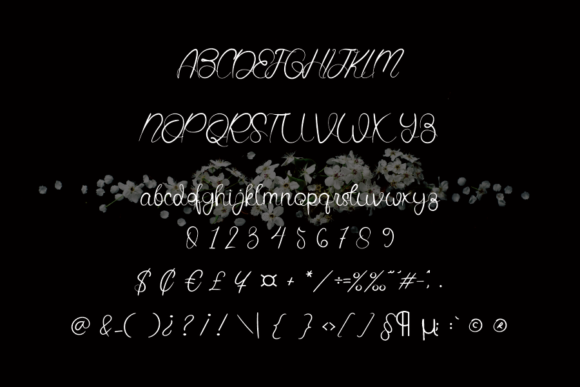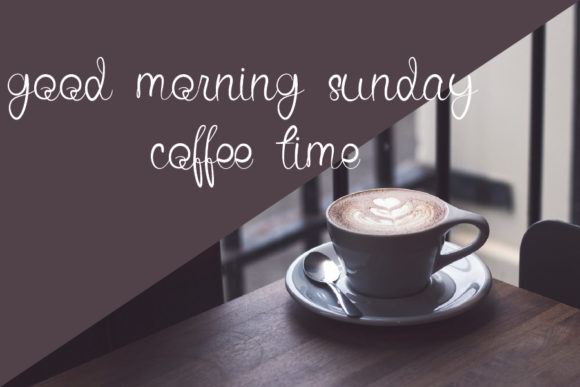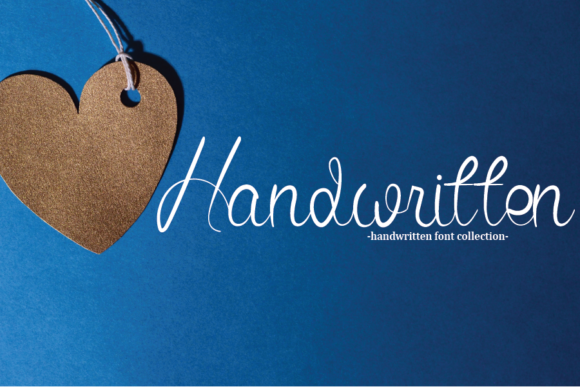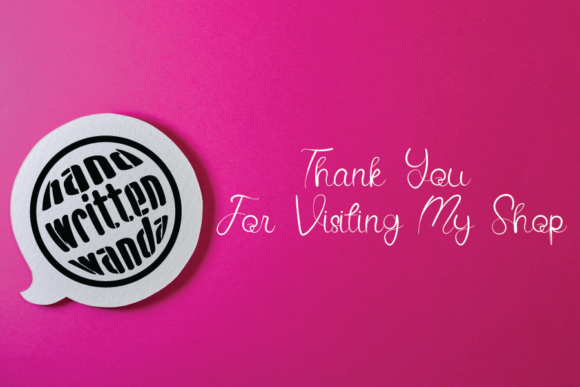
The Quest for the Perfect Font: Discovering Briliant Signature
I’ll never forget the design project that led me to Briliant Signature. I was working on a custom wedding invitation for a client who wanted something elegant, yet modern. As I scrolled through font after font, I just couldn’t find the right fit. That was until I stumbled upon Briliant Signature – an elegant script font that instantly captured the essence of what I was looking for.
A First Impression: What Makes Briliant Signature Stand Out
Briliant Signature is described as an elegant script font with a contemporary atmosphere and impeccable form, inspired by timeless classic calligraphy. And trust me, it delivers. Not too thin and not too thick, this font strikes a perfect balance, making it versatile for a wide range of projects.
- ✨ Elegant and sophisticated feel that’s perfect for high-end projects
- ✅ Highly legible, even at smaller sizes
- 💫 Beautifully crafted with a clear attention to detail
- 🌈 Versatile and adaptable to various design contexts
- 🤔 Some users might find the font a bit too ‘script-heavy’ for very casual projects
- ⚠️ Limited availability of certain OpenType features in older software
The Story Behind Briliant Signature: Designer Inspiration
While the actual origins of Briliant Signature remain a mystery, it’s easy to imagine that its creation was inspired by a passion for classic calligraphy and modern design. The font’s designer likely sought to craft a typeface that would marry the elegance of traditional calligraphy with the needs of contemporary design.
Q: What makes Briliant Signature suitable for high-end projects?
A: Its impeccable form, elegant lines, and balanced strokes make it perfect for sophisticated and professional designs.
Q: Can I use Briliant Signature for body text?
A: While it’s primarily designed for headings and titles, Briliant Signature’s legibility makes it suitable for short paragraphs of body text.
Q: Does Briliant Signature support OpenType features?
A: Yes, Briliant Signature supports various OpenType features, including stylistic alternates and glyphs, which can be accessed in compatible software.
Q: Is Briliant Signature easy to read?
A: Absolutely! Its clear and elegant design ensures that it’s highly legible, even at smaller sizes.